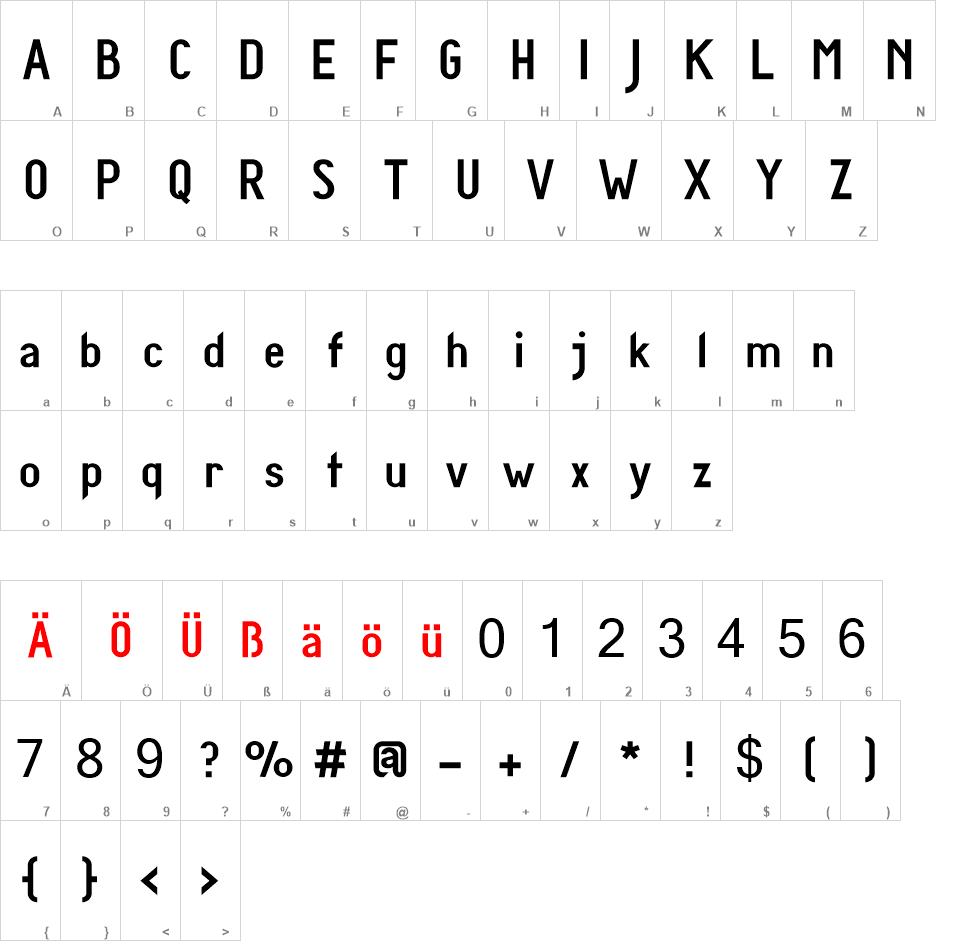
Diamante
Diamante is a Geometric Sans Serif Font with a strong and practical look.
It is designed using plain geometric shapes and 45° cuts on strokes, gives its best as Display Font.
The character set is extended to East European Languages.
Diamante is created for both simple and complex typography, from newspaper headlines to small book covers or elaborated layouts.
Diamante Family:
Diamante Regular
Diamante Bold
Diamante Light